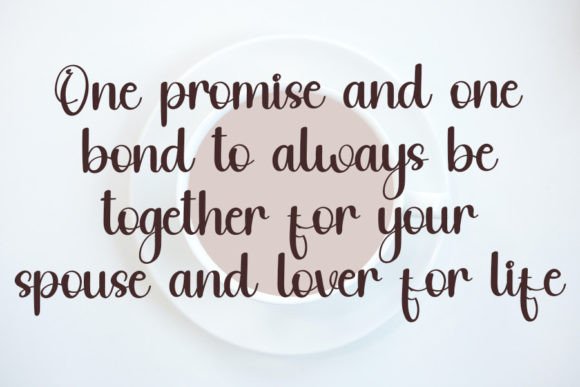
About Standby Font
Standby is a fun and casual handwritten font designed to captivate with its incredibly versatile style. This font is perfect for creating a wide range of visually appealing projects, including gorgeous wedding invitations, beautiful stationary art, eye-catching social media posts, and much more.
The casual and handwritten nature of Standby adds a friendly and approachable touch to your text. Whether you’re working on wedding invitations that demand a touch of charm or creating social media posts that require an engaging and relaxed vibe, Standby stands out as a font that meets your versatile design needs.
Imagine Standby gracing your designs, whether on playful wedding invitations, delightful stationary art, or captivating social media posts. The font becomes a creative tool that not only adds a casual and fun element but also enhances the overall visual appeal of your projects.
In summary, Standby is more than just a font; it’s a design asset that brings fun and versatility to your creative endeavors. Embrace its casual and handwritten style confidently, and let Standby be the typeface that adds a touch of charm to your various design projects.